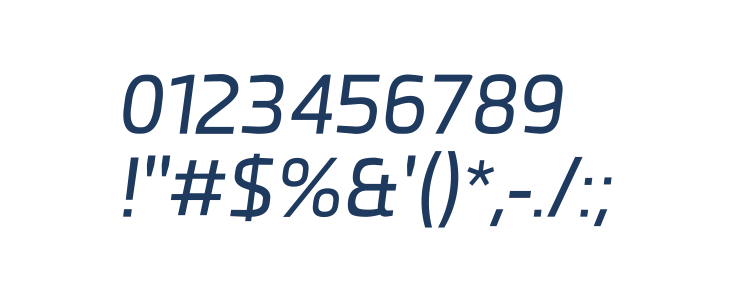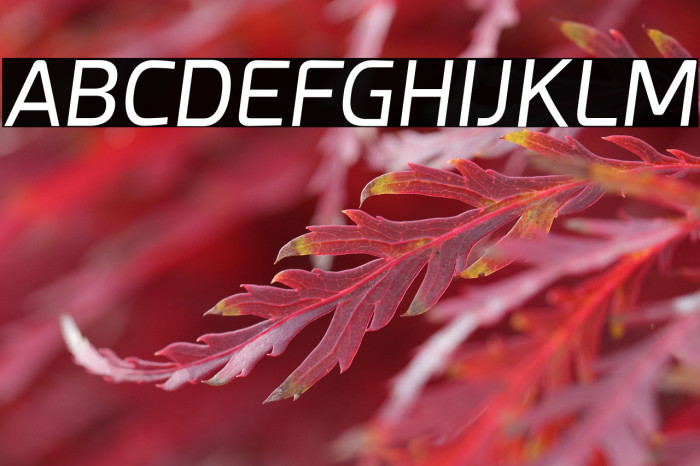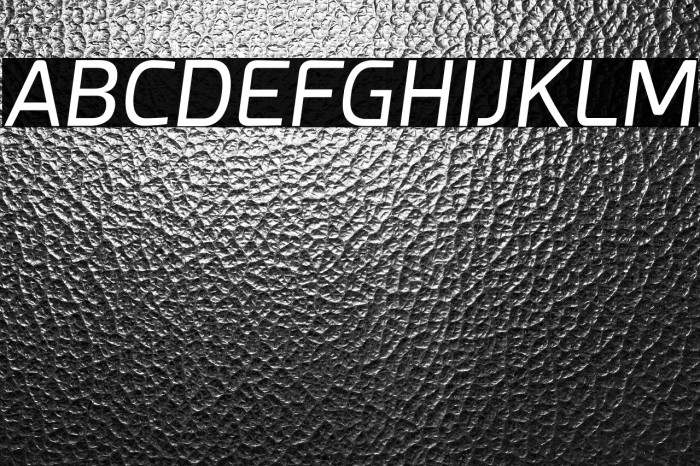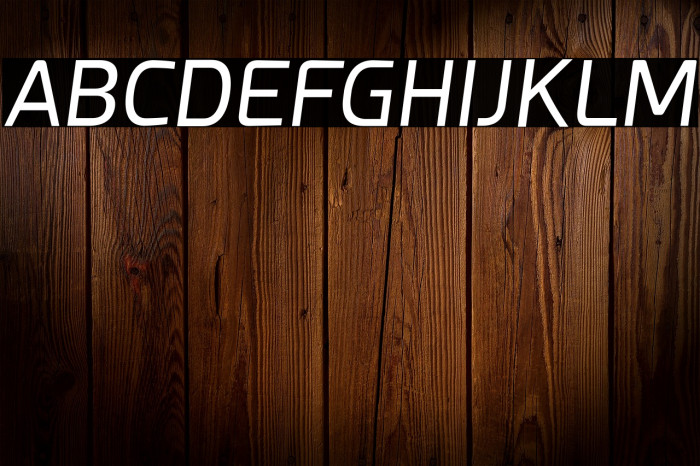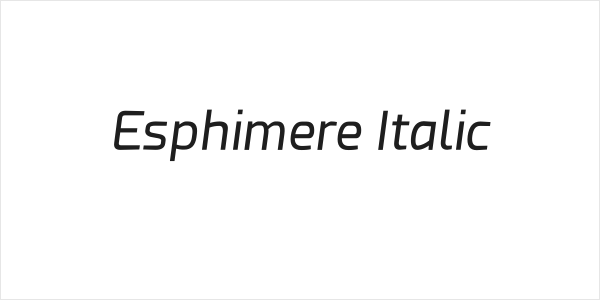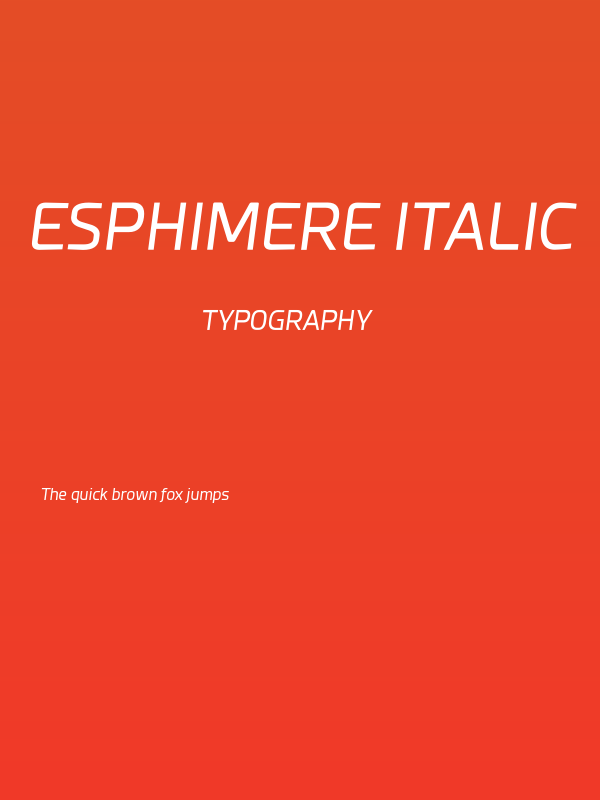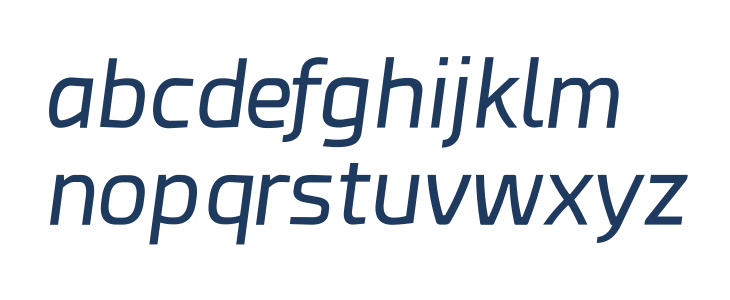
Esphimere Italic Font
Esphimere Italic Description
This typeface features a sleek and modern design with a slight italic slant, giving it a dynamic and forward-moving appearance. The characters are clean and well-defined, with a consistent stroke width that maintains readability across various sizes. The uppercase letters are bold and commanding, while the lowercase letters offer a softer, more approachable feel. The numerals are clear and distinct, making them suitable for both text and numerical data presentation. Special characters are well-integrated, maintaining the overall aesthetic of the font. This typeface is versatile, suitable for both digital and print media, and can be used effectively in a variety of design contexts.
| Proposed Projects | Ideal for branding, advertising, digital interfaces, and editorial design. |